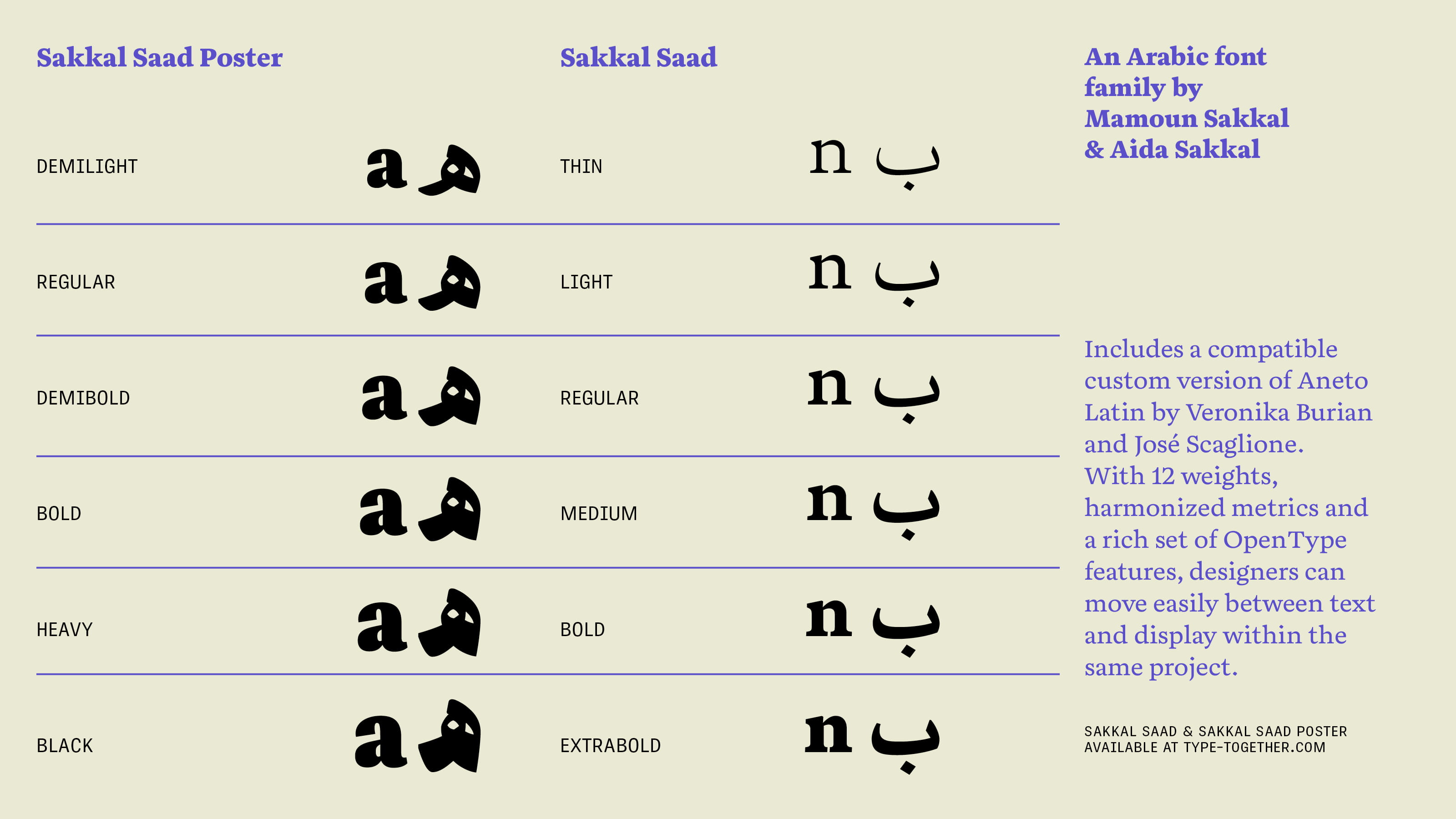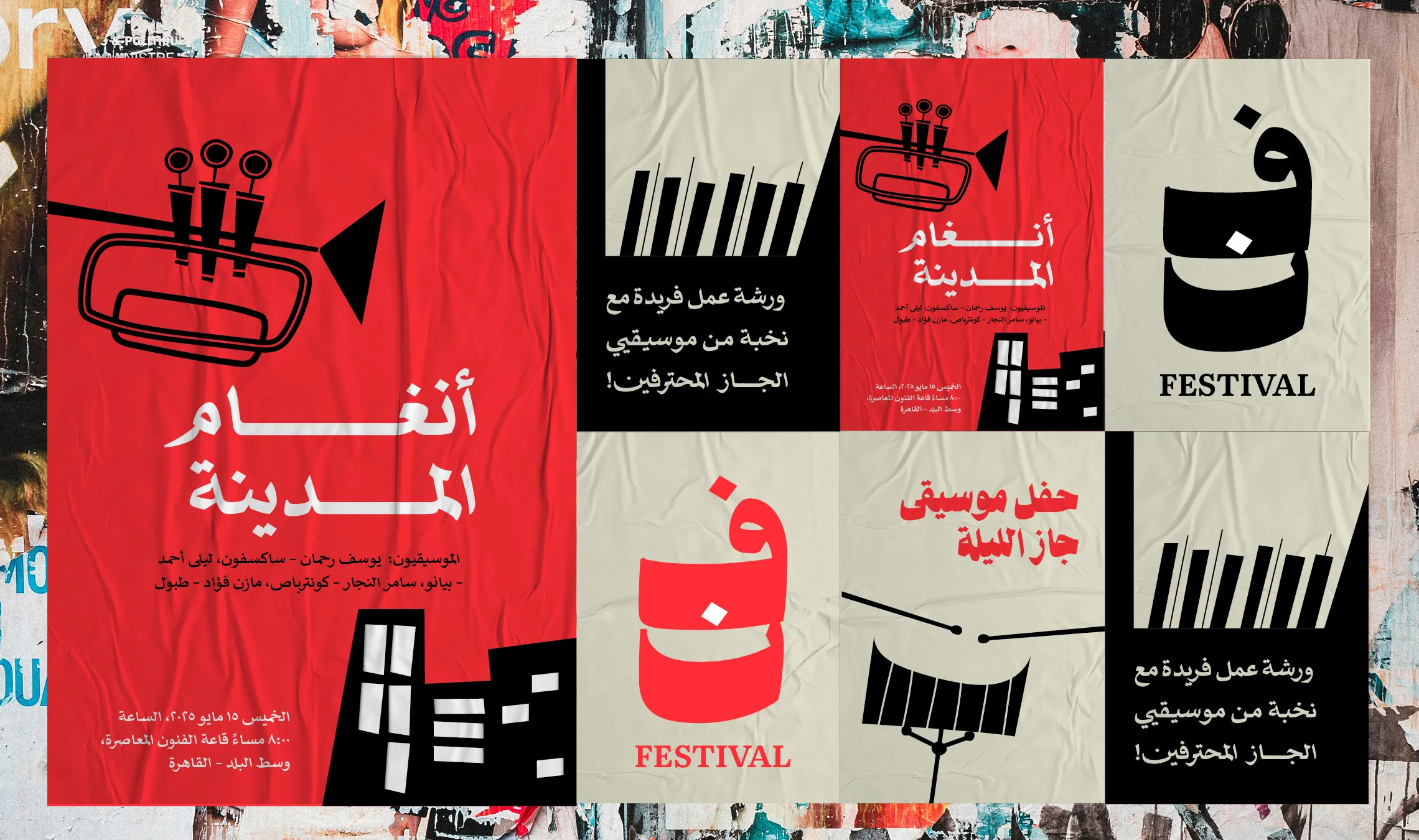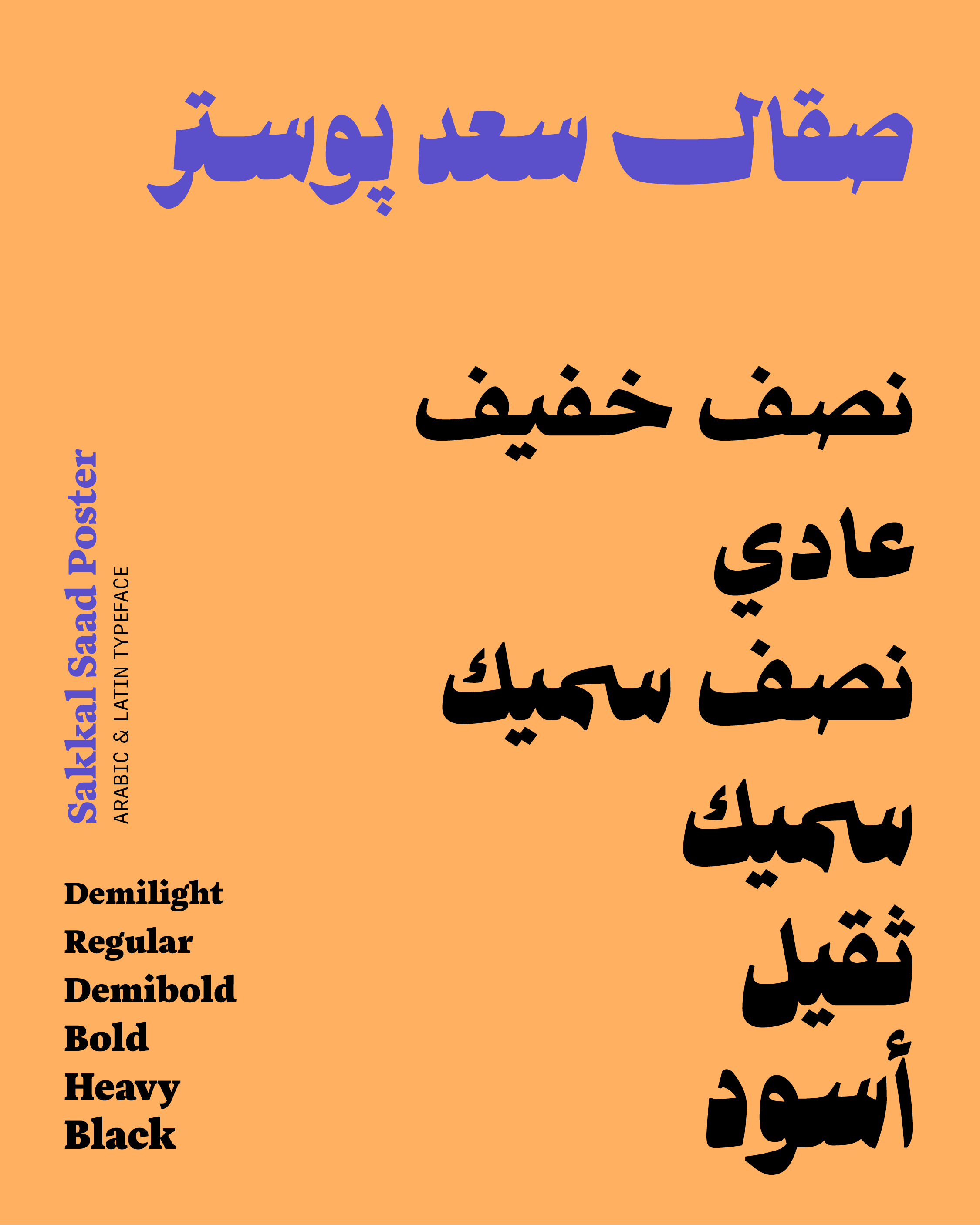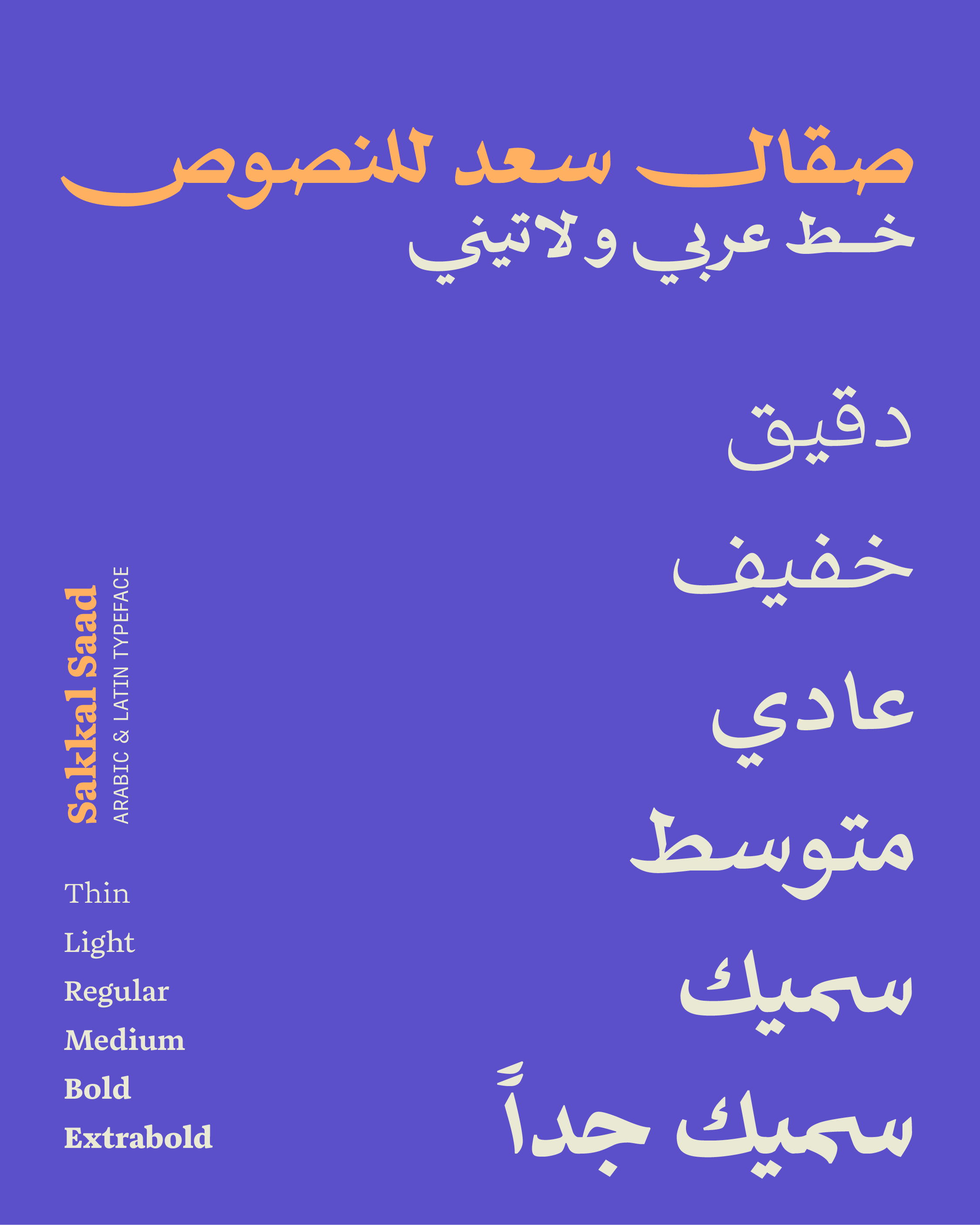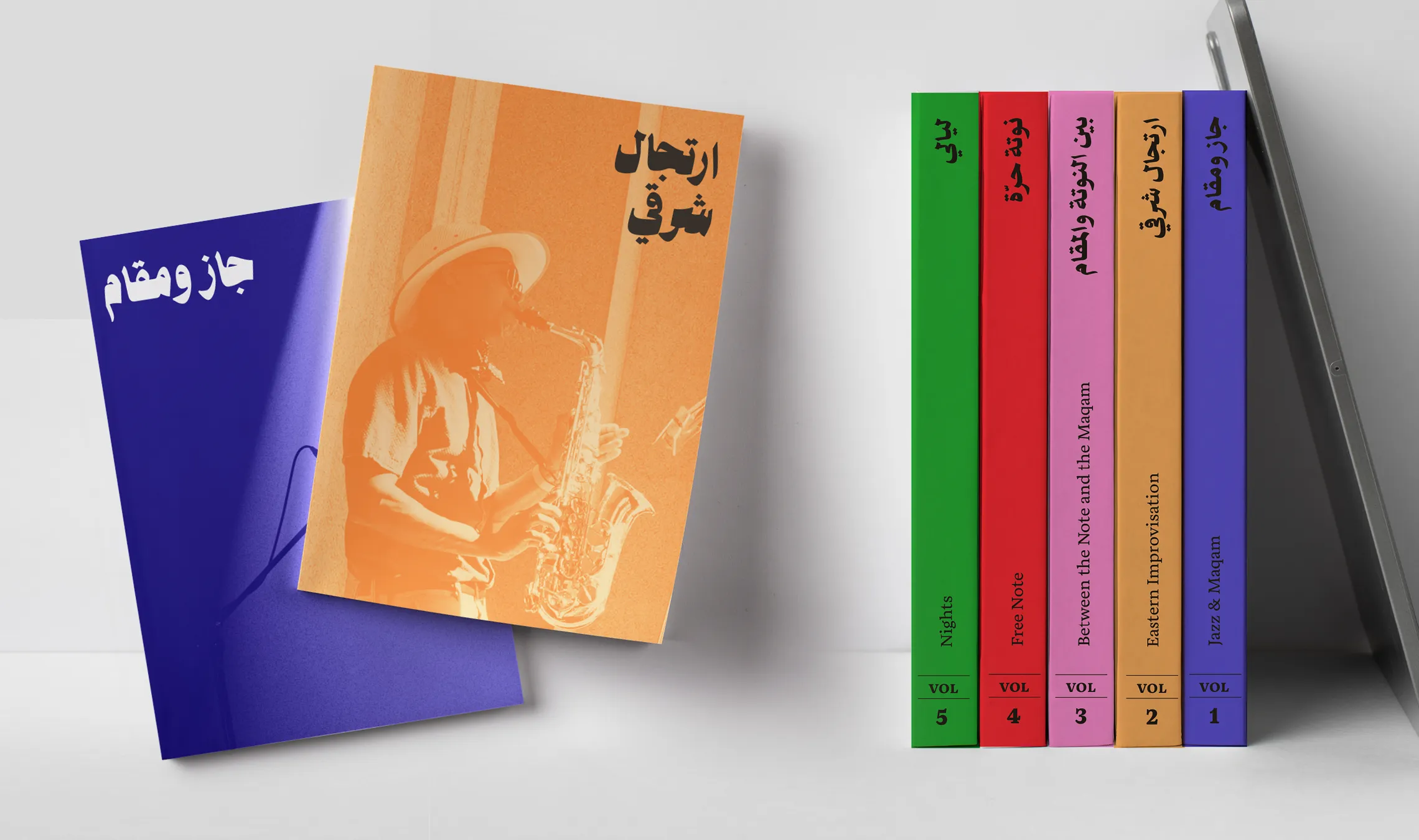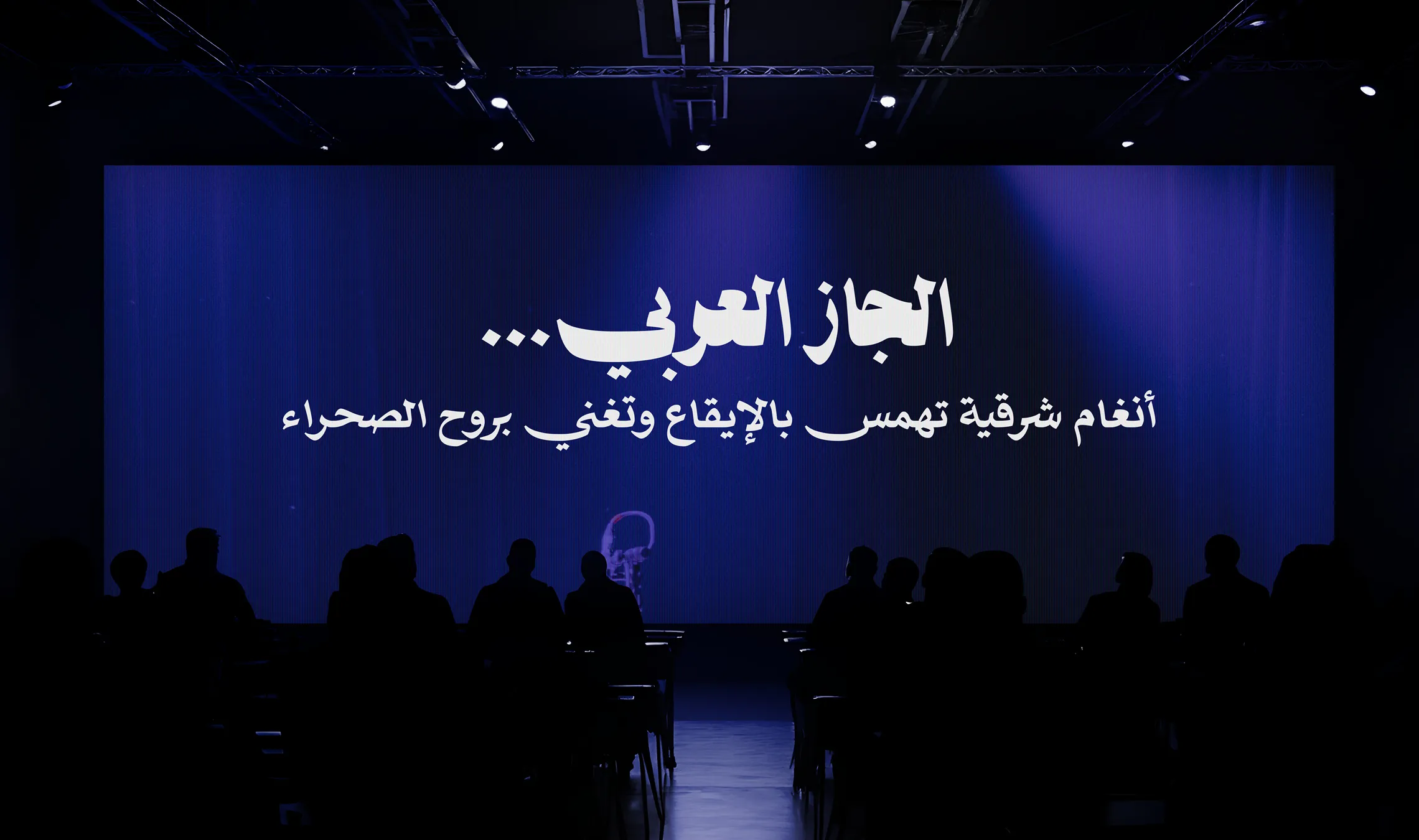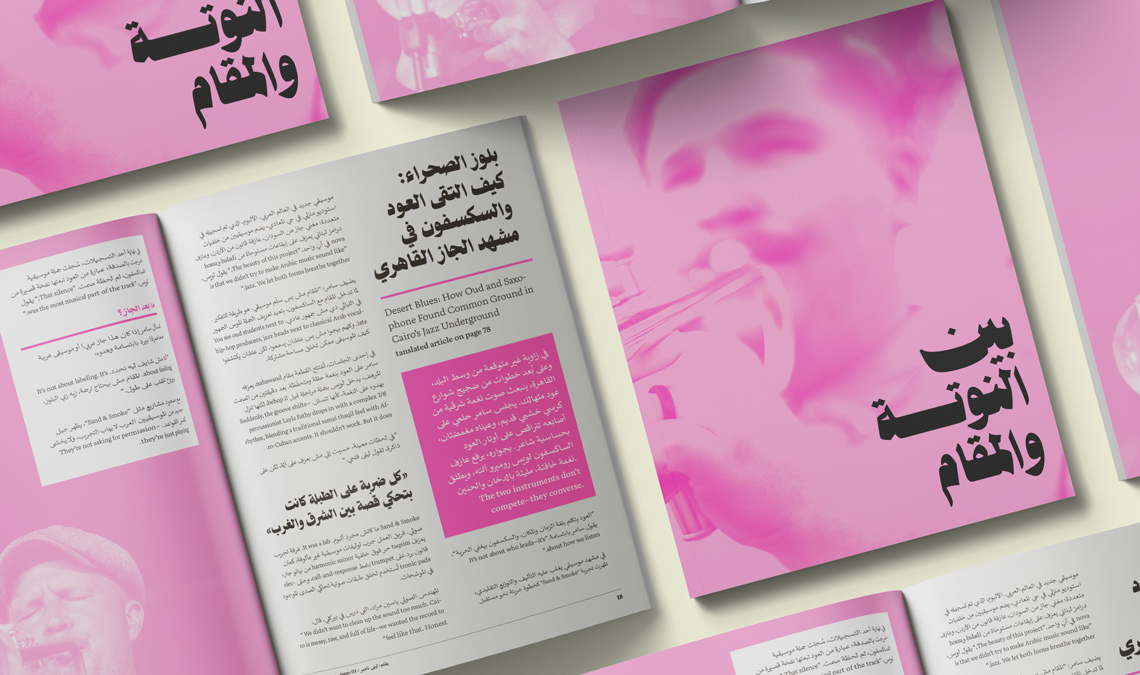
New release: Sakkal Saad
Dr. Mamoun Sakkal and Aida Sakkal have released Sakkal Saad and Sakkal Saad Poster, a bold, playful, and chunky family, rich in features and in its ability to be used widely.
We are excited to announce the release of Sakkal Saad, an Arabic typeface with 12 styles by Dr. Mamoun Sakkal and Aida Sakkal! The family communicates through both traditional and modern design elements: calligraphic beauty balanced by sharp pen strokes for a contemporary look that carries a dose of warmth.
Designed for text, Sakkal Saad has compact vertical proportions for space economy while maintaining legibility, whereas Sakkal Saad Poster opts to take up more vertical space with a commanding presence that still only barely extends words horizontally across a line. The sharp strokes of the pen are also clearly expressed for a contemporary look, highlighting the fine characteristics of Naskh calligraphy here.
The text family, Sakkal Saad, is ideal for signage, branding, and long text settings, especially online and in books and magazines. And the display family, Sakkal Saad Poster is great for display and advertising. With an included custom version of Aneto for Latin-based text, Sakkal Saad provides clarity and graphic style in multiscript design and communication.